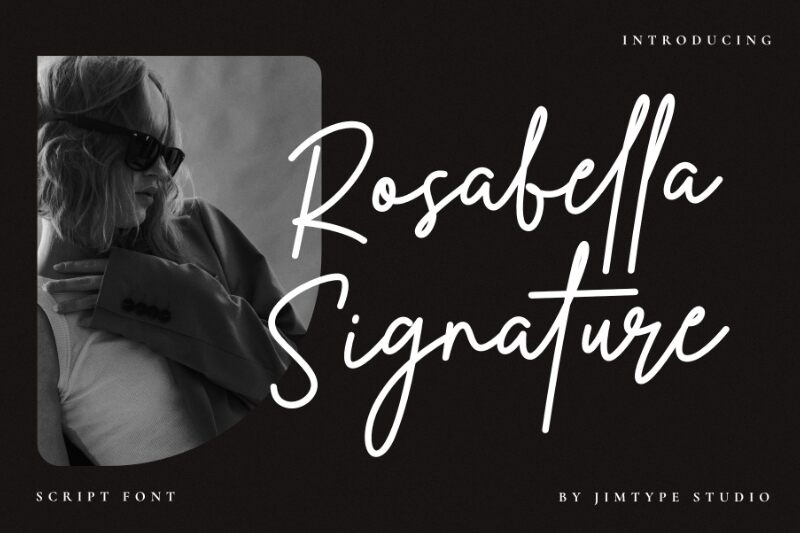
Rosabella Signature, a captivating creation by Jimtype Studio, exudes an air of timeless elegance and sophistication. The fluid, cursive strokes and delicate ligatures evoke a sense of effortless grace, making this font a true embodiment of the signature aesthetic. Rosabella Signature's intricate flourishes and harmonious letter forms seamlessly blend to form a visually striking and emotionally resonant typographic expression.
This versatile font effortlessly lends itself to a wide range of design applications, from high-end branding and luxury packaging to elegant invitations and personalized stationery. Its distinctive personality shines through in both large and small-scale implementations, making it a versatile choice for designers seeking to infuse their projects with a touch of timeless sophistication.